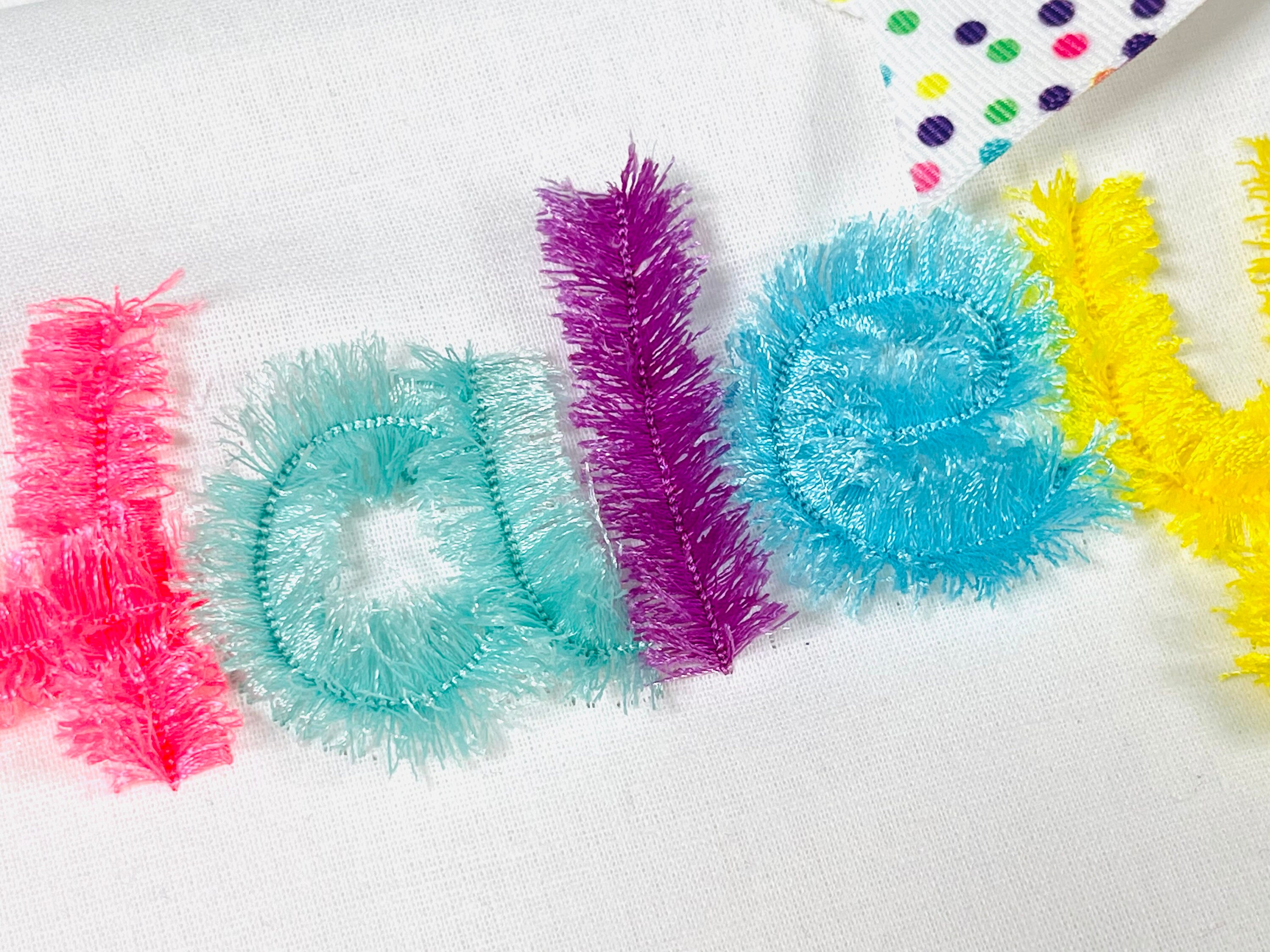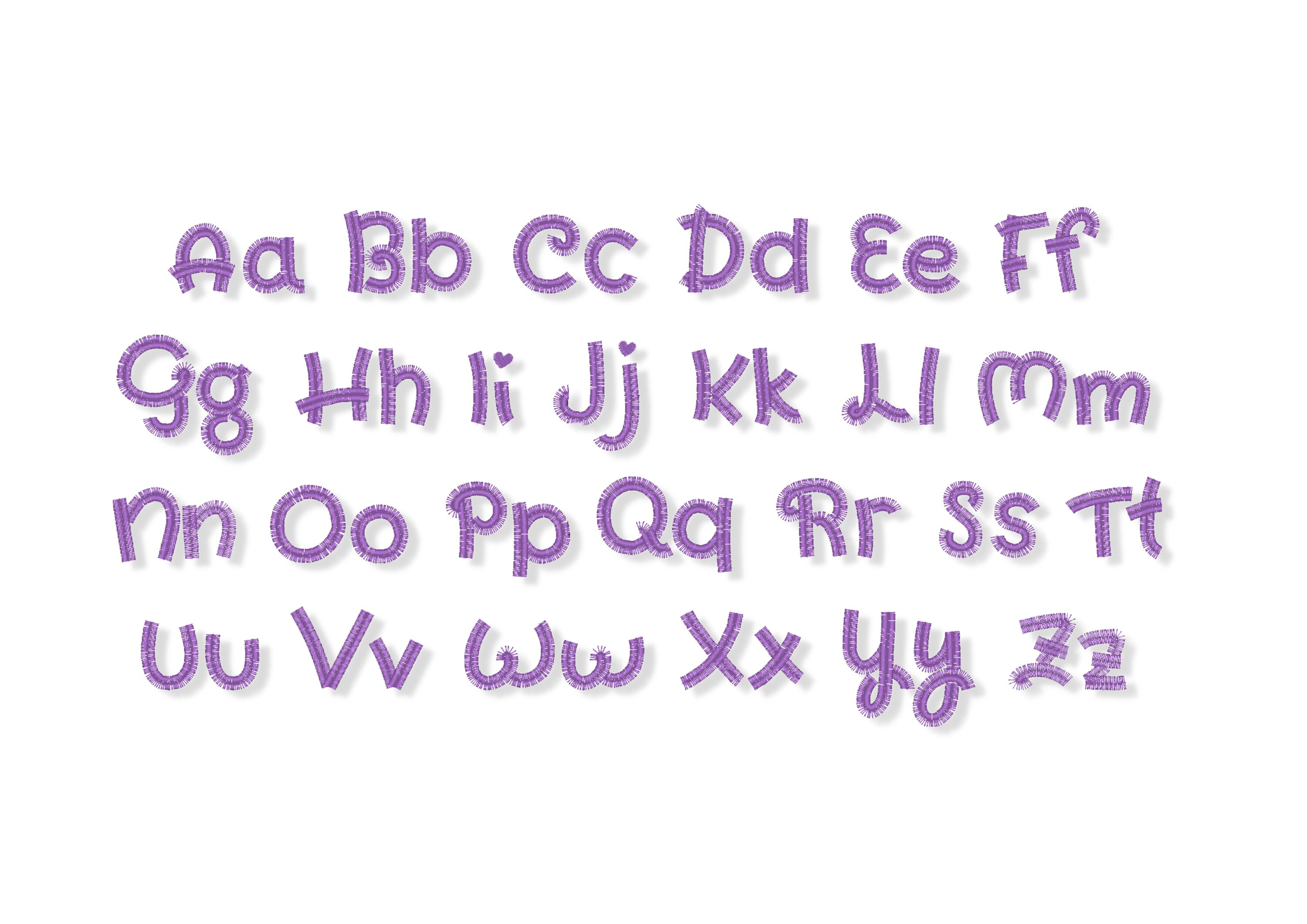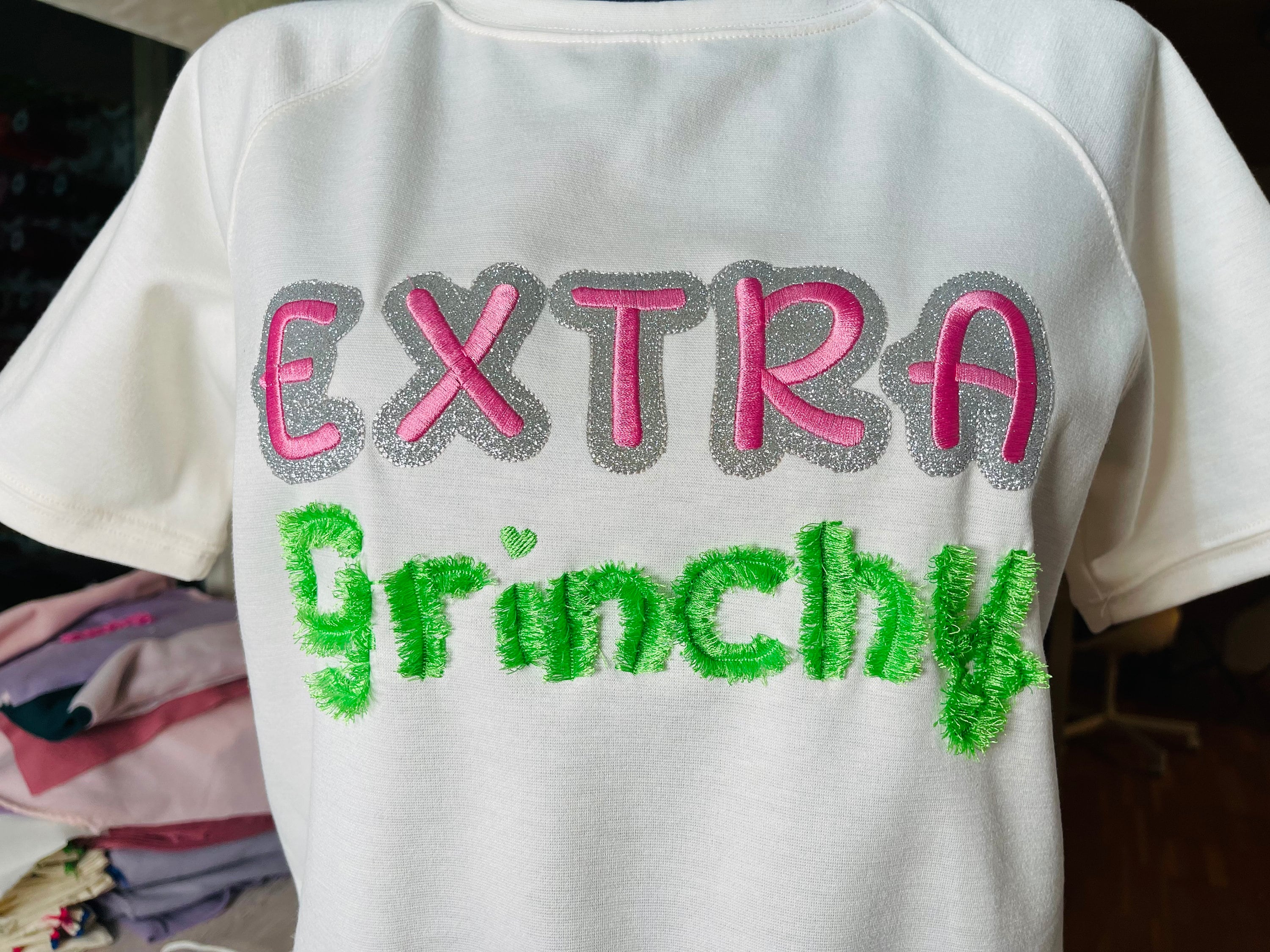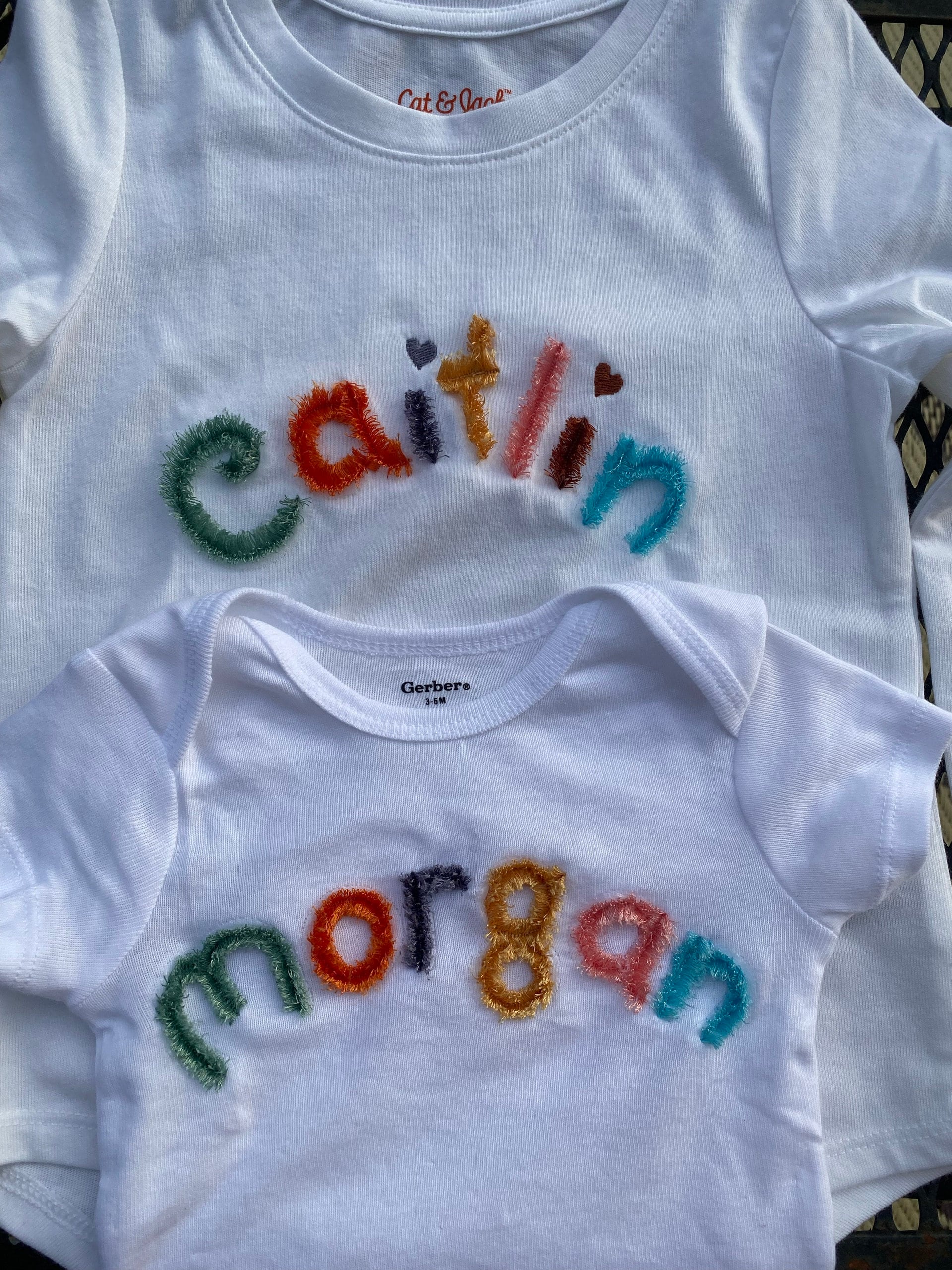
You may fringe all letters. Please view the last photo on how-to.
100 % safe to wash (the design has a special tack seam that holds a fringe in place)
How to make fringe.
It is easy. Embroider the design as usual. Large satin stitches will be loose. Once you complete stitching the design turn over your hoop and cut the bobbin thread, under large satin stitches. Turn the hoop back over and fluff up the "fringe" around. Please view the last image on how to.
Entire alphabet A-Z uppercase and lowercase.